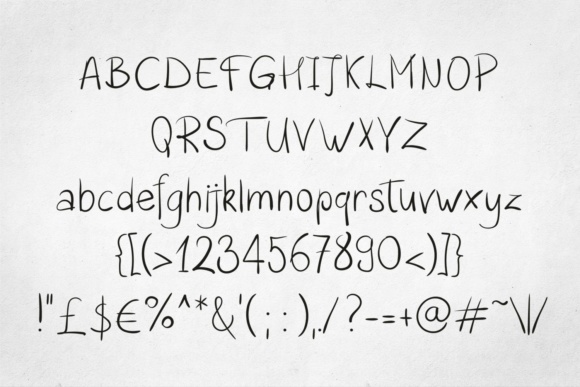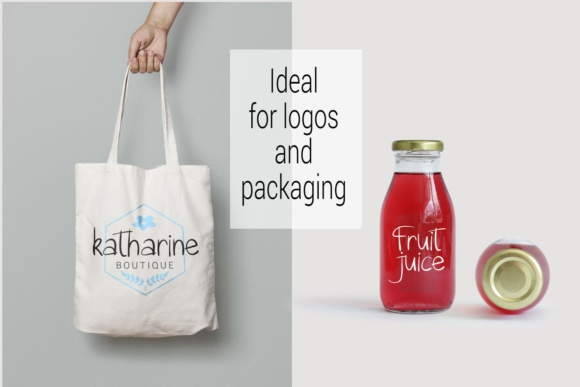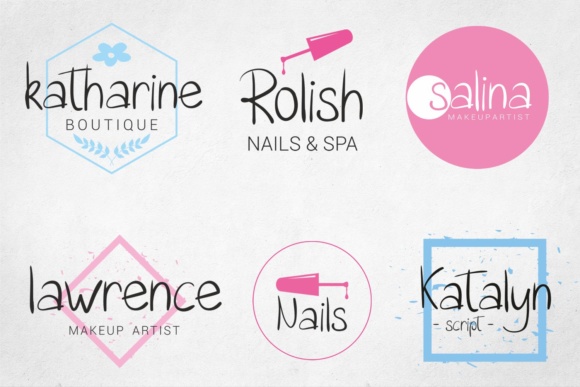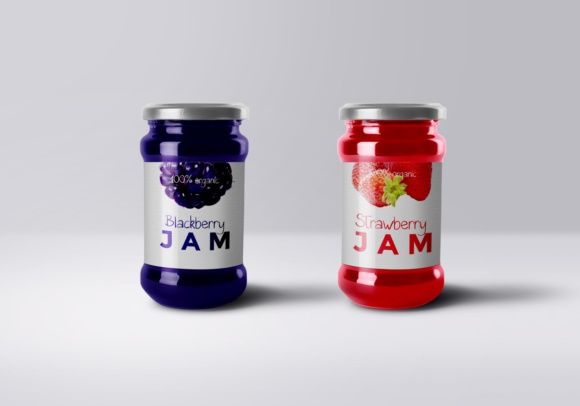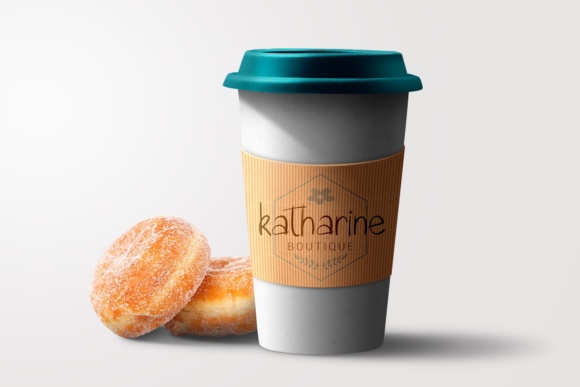
Katalyn Font
About Katalyn Font
The Katalyn is an unique script typeface. It has a good readability which makes it perfect for logos, branding, packaging and more.